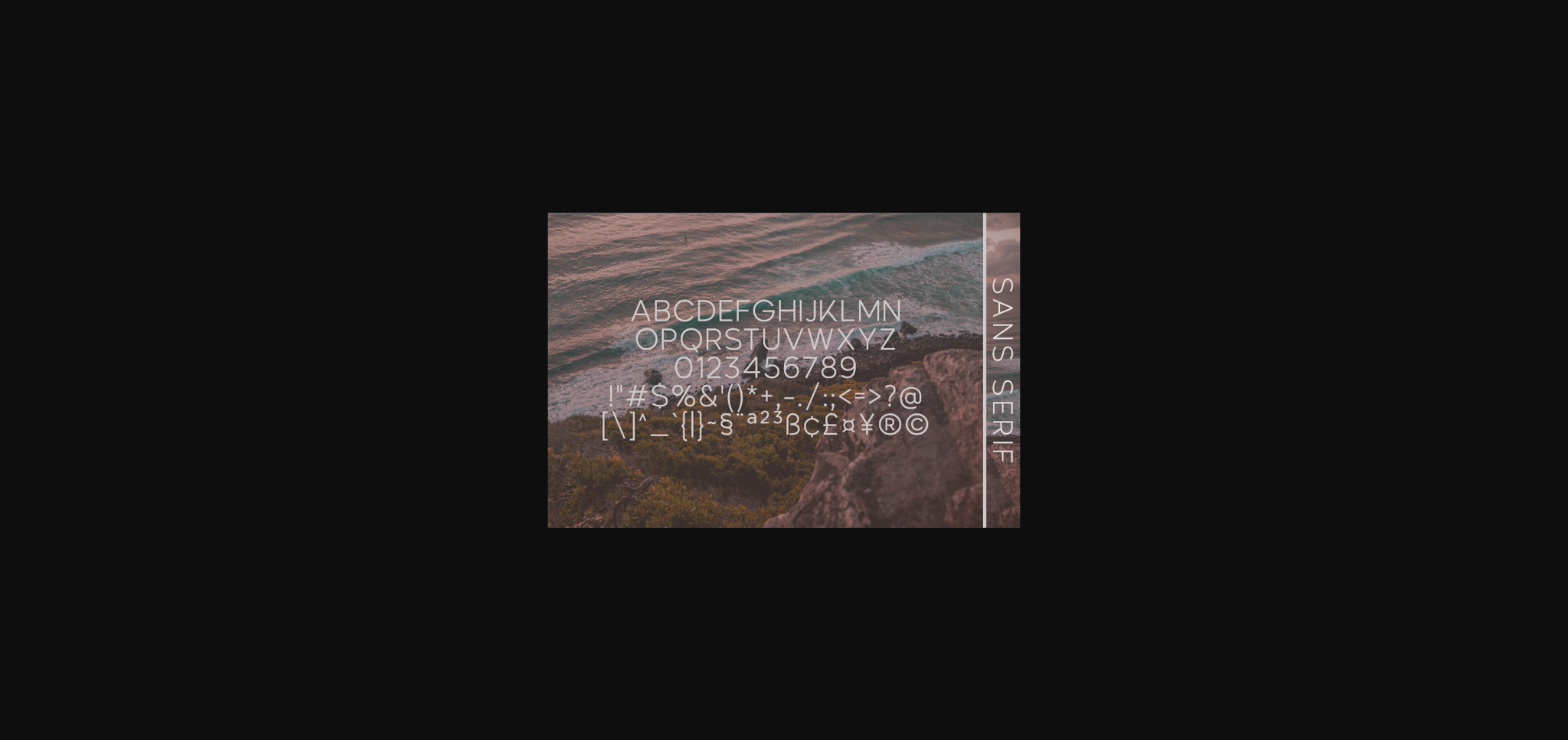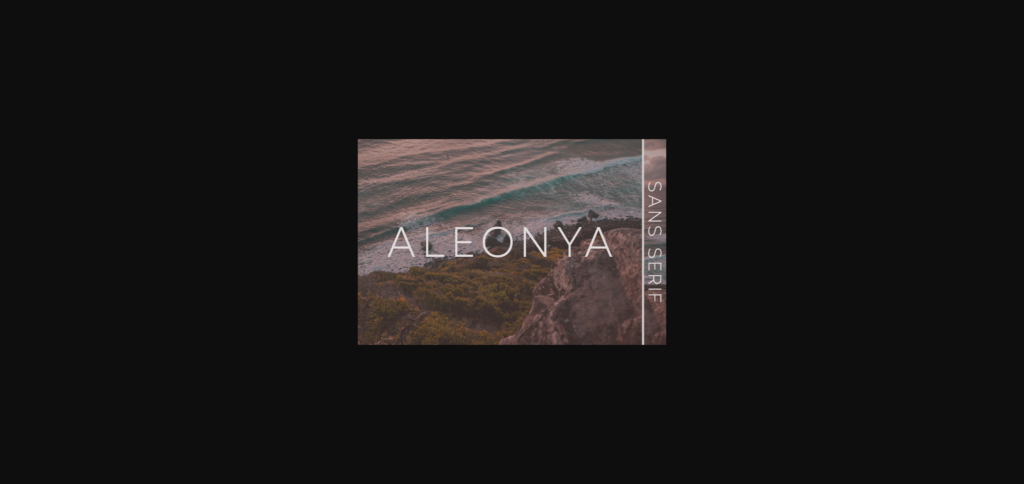
Aleonya Font
About Aleonya Font
Aleony is a modern and sophisticated font. It will look perfect when used in logos, branding, packaging design, and much more. This masterfully designed sans serif font is a true must-have.